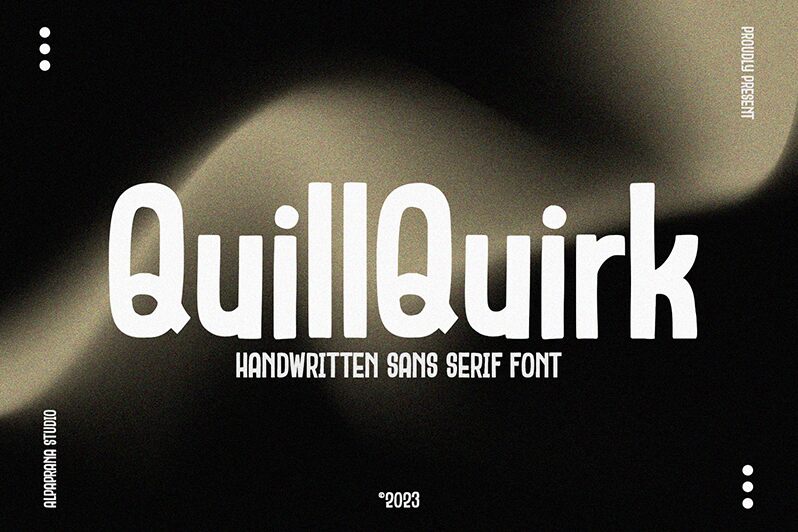
QuillQuirk font family by Alpaprana Studio consist of 2 font styles which can be used individually or together in one art project. These provide a balanced and contemporary free font option for all fancy typography lovers. QuillQuirk design sits between the casual and the approachable on the friendly-organic scale. This allows for a modern application in multiple types of design or art project. It’s what you can achieve with just the click of a couple of buttons.
Although outstanding for titles, there are many other use cases in which you can experiment with this font family. Examples include packaging design, stationery and branding, greeting cards, or labels. That’s in addition to different kinds of invites, social media, or general print and digital graphics. Handwriting typeface author Alpaprana Studio describes it as a calligraphic approach inspired by the strokes of a calligrapher’s quill.